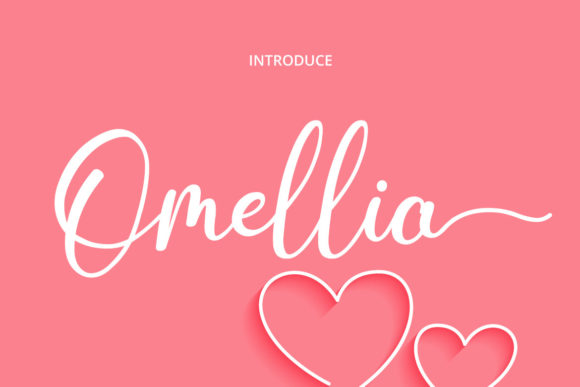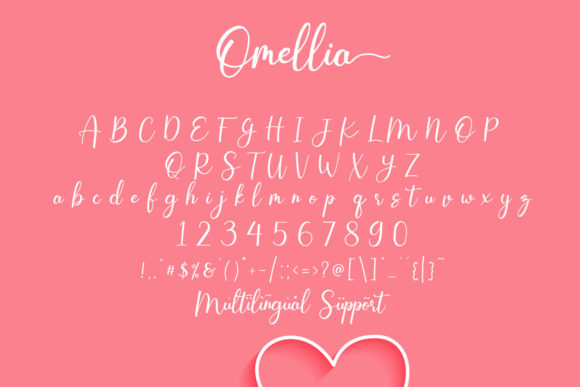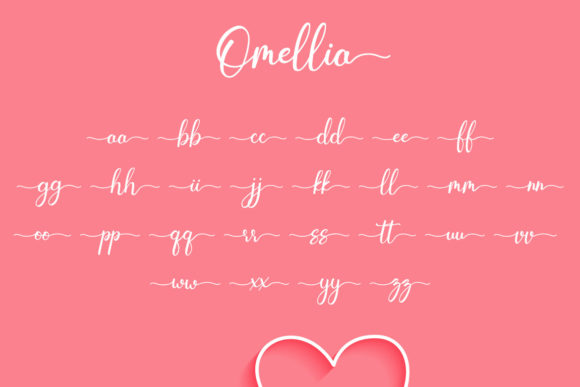
Omellia is an elegant and sophisticated serif font. It has very well-balanced characters and as a result, it matches a wide pool of designs. Have fun with this beautiful font and explore its endless variations.